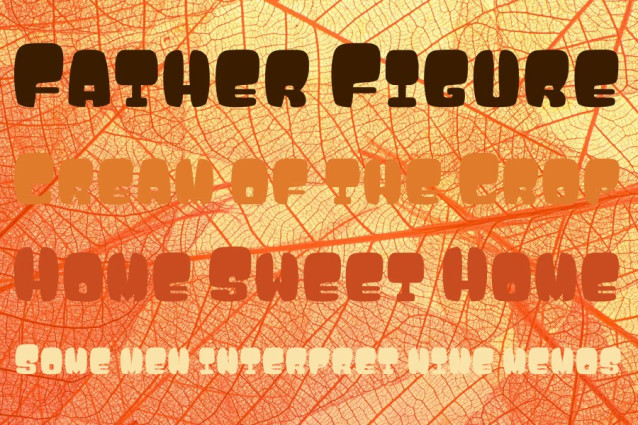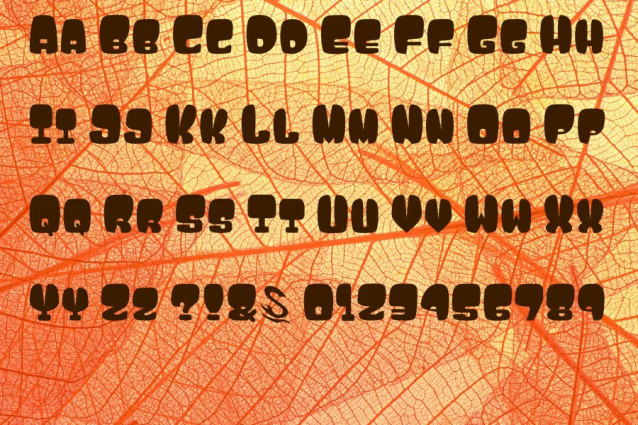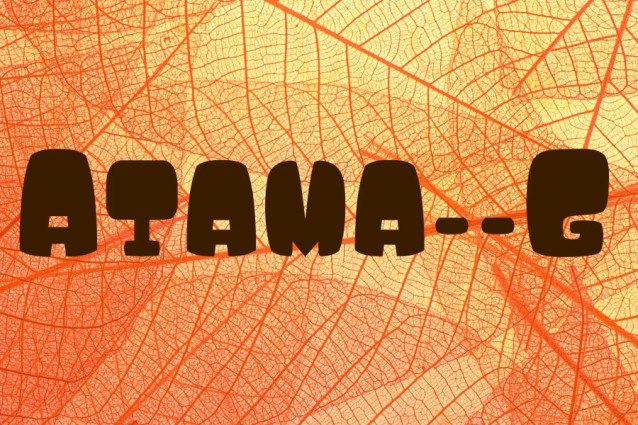
Atama__G Font
Atama__G Font is a bold display font with chunky, rounded letterforms that feel playful and retro. With its bubbly shapes and generous curves, the typeface exudes a friendly, approachable personality reminiscent of comic book titles and vintage bubble lettering.
The thick strokes create a strong presence while the open counters and smooth connections keep it easy to read. Each character has a steady rhythm with soft edges and subtle variations that add warmth without sacrificing clarity.
This versatile font shines in creative contexts such as posters, packaging, party invitations and branding for games or food products. Use Atama to bring a touch of fun and energy to headlines, logos or any design that calls for a cheerful, eye catching statement.